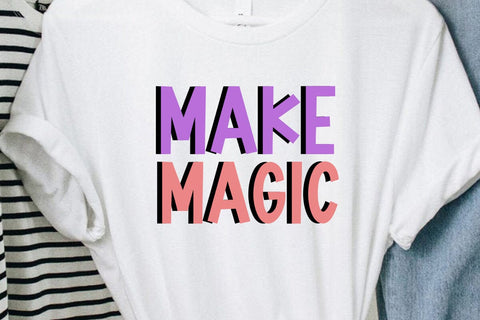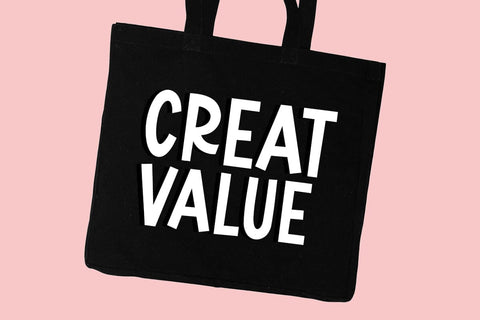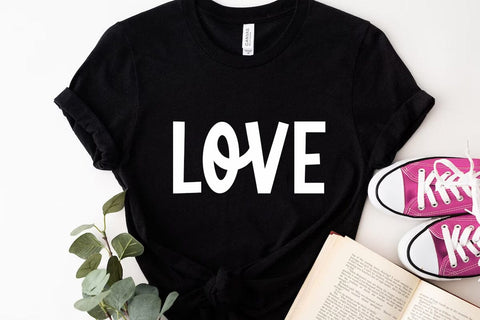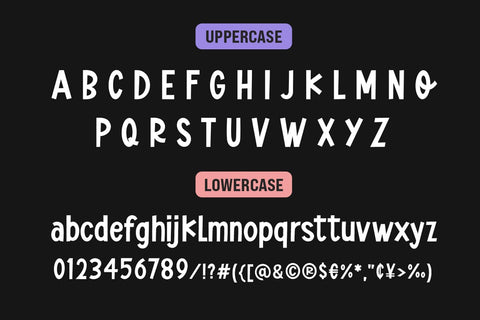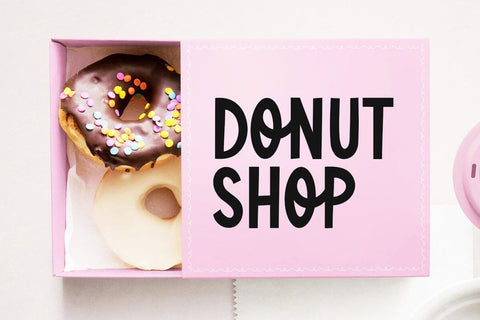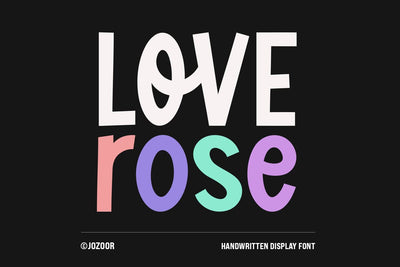
Love Rose - Cute Handwriting Font
Love Rose is a modern, stylish, and flowing handwritten display font. It has beautiful and well-balanced characters and as a result, it matches a wide pool of designs. It is the best choice for creating eye-catching logos, branding, and quotes. Add it to your most creative ideas, and notice how it makes them come alive!